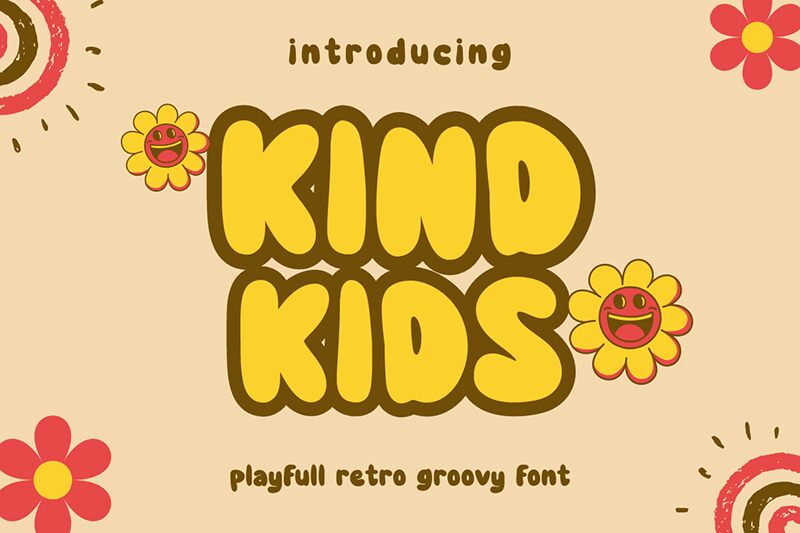
Kind Kids font by Tri Sakti Oktaviano is a free bold display typeface in a retro groovy style. The rounded letters resemble bubble shapes and create an informal yet friendly appearance that welcomes readers to a unique adventure. Inviting and colorful, this vibrant font can be used within designs that call for attention.
Kind Kids can bring life to projects such as movie posters, book covers, comic books, cartoons, art galleries-related branding materials like flyers and brochures, logos related to fun businesses or gig posters for music performances. Its colorful vibe also gets along with video games of all sorts including arcade, role-play, or adventure games.